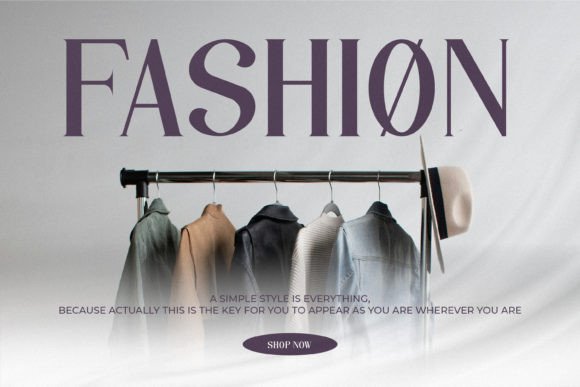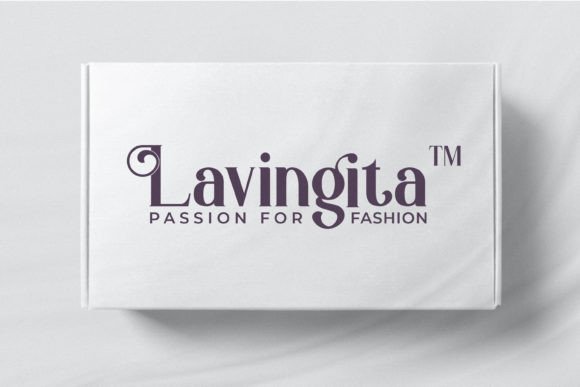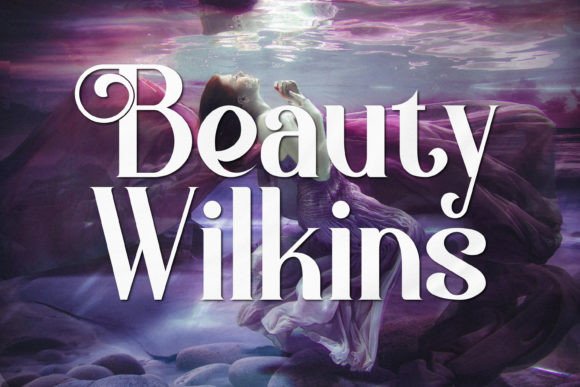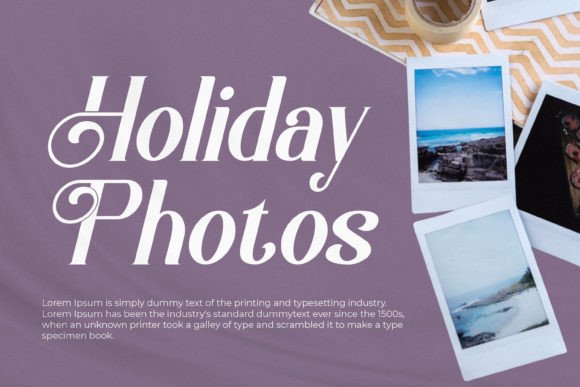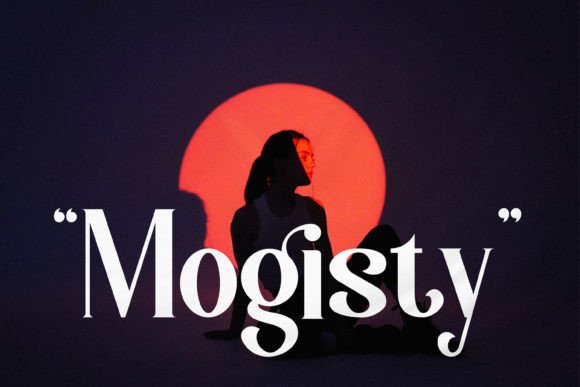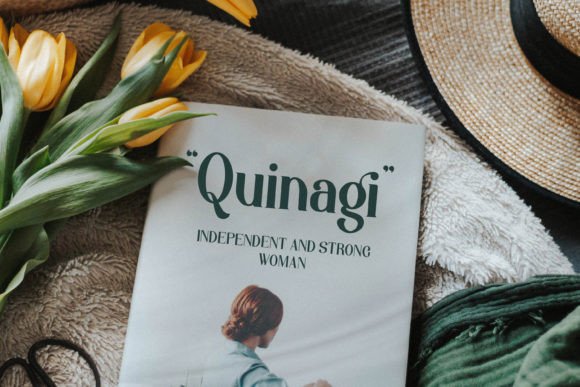
Haringit Font: Elevate Your Designs with a Touch of Luxury
In the world of design, typography plays a crucial role in conveying the tone and aesthetic of a project. For designers and crafters seeking a font that exudes sophistication and elegance, Haringit Font is an excellent choice. This modern and premium serif font is perfect for a wide range of applications, from logos and branding projects to homewares designs, product packaging, and more.
What is Haringit Font?
Haringit Font is a carefully crafted serif font designed to bring a touch of luxury to any project. Its modern aesthetic and premium feel make it an ideal choice for designers and crafters who want to elevate their work. With its clean lines, elegant curves, and precise letter spacing, Haringit Font is sure to impress.
Key Features of Haringit Font
- Modern and Premium Design: Haringit Font boasts a sleek and sophisticated design that is perfect for luxury projects.
- Serif Elegance: The font’s serif details add a touch of elegance and refinement, making it suitable for high-end applications.
- Versatile: Haringit Font can be used for a wide range of projects, from logos and branding to homewares designs, product packaging, and more.
- Easy to Read: The font’s clear and precise lettering ensures excellent readability, even at small sizes.
Use Cases for Haringit Font
Haringit Font is an incredibly versatile font that can be used for various design projects, including:
- Logos and Branding Projects: Create a lasting impression with a luxurious logo that showcases your brand’s personality.
- Homewares Designs: Add a touch of elegance to your homewares designs, such as ceramics, textiles, and more.
- Product Packaging: Elevate your product packaging with a premium font that conveys luxury and sophistication.
- Mugs and Apparel: Create stunning designs for mugs, t-shirts, and other apparel with Haringit Font.
- Posters and Quotes: Use Haringit Font to create visually striking posters and quotes that grab attention.
- Business Cards and Invitation Cards: Make a lasting impression with elegant business cards and invitation cards.
- Greeting Cards and Labels: Add a touch of luxury to your greeting cards and labels with Haringit Font.
- Photography and Watermarks: Use Haringit Font to create elegant watermarks for your photographs.
Why Choose Haringit Font?
With so many fonts available, why choose Haringit Font? Here are a few compelling reasons:
- Unique and Exclusive: Haringit Font offers a distinctive and exclusive design that sets it apart from other fonts.
- High-Quality: The font is crafted with precision and attention to detail, ensuring a high-quality design that looks great in any application.
- Time-Saving: With Haringit Font, you can save time and effort in finding the perfect font for your project.
In conclusion, Haringit Font is an exceptional choice for designers and crafters seeking a modern and premium serif font for their luxury projects. With its elegant design, versatility, and high-quality craftsmanship, Haringit Font is sure to elevate your designs and leave a lasting impression. Whether you’re working on logos, branding projects, homewares designs, or any other luxury project, Haringit Font is the perfect choice.